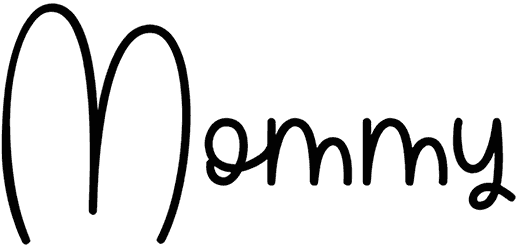
Mommy Monoline Font
Today, we want to represent you with an adorable yet playful handwritten font with tons of fun, Mommy Monoline, designed exclusively to make your work look cheerful and sweet simultaneously, but it might seem a little unreadable.
By the way, you can use this font in a wide range of applications, from happy situations like birthdays to concepts related to teenage girls.